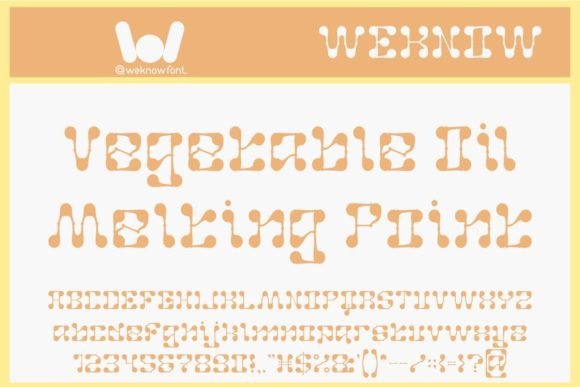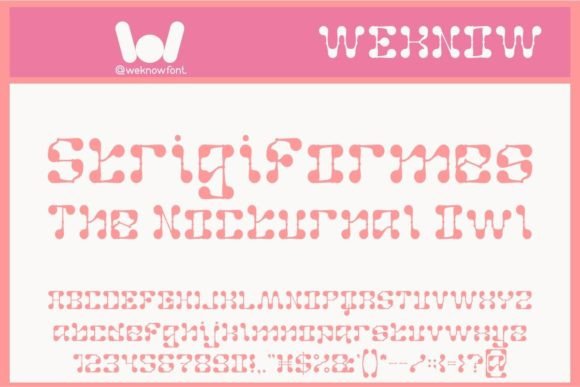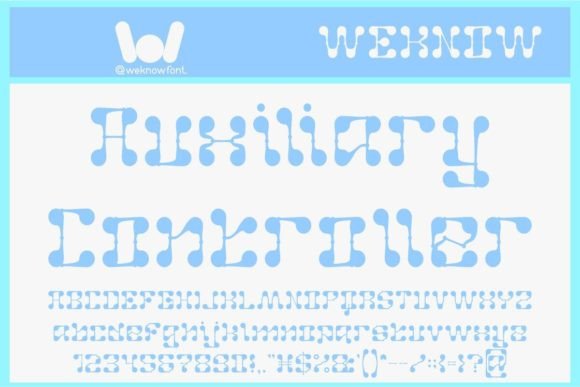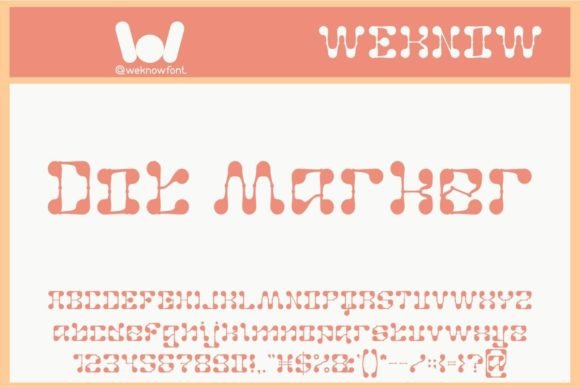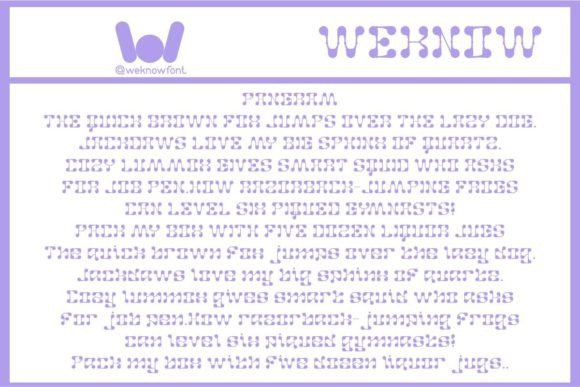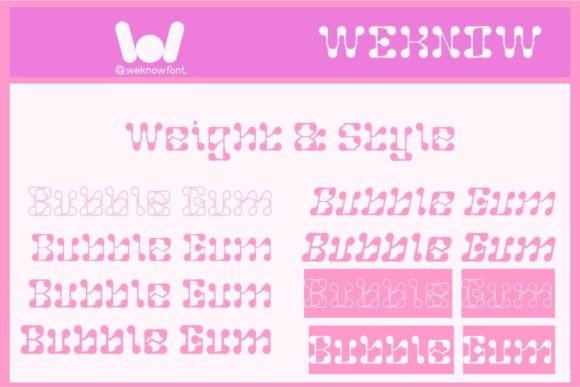
Get Ready to Blow Some Bubbles with Your Design
Who hasn’t had that moment when you’re brainstorming a new project and the perfect font suddenly pops into your head, only to leave you wondering where it is when you need it most? For designers, this moment is a familiar one, and the search for that elusive perfect font can be a daunting task. But what if you could capture the essence of a playful, whimsical spirit in your design, and have it at your fingertips whenever you need it?
Enter the Bubble Gum Font, a delightfully eclectic display font that brings a touch of fun and whimsy to any project. With its playful dots and rounded features, this font is the perfect tool for designers looking to add a little extra something special to their work. Whether you’re crafting a logo, creating a headline, or designing a website, the Bubble Gum Font is the perfect companion to help bring your vision to life.
Bubble Gum Font Key Features
- Font Family: Bubble Gum is a unique, hand-drawn font designed to resemble bubble gum. It is available in a single font family.
- Character Set: The font contains a wide range of characters, including uppercase and lowercase letters, numbers, punctuation marks, and special characters.
- Unique Characteristics: The font’s unique, hand-drawn style and bubbly texture give it a playful and fun appearance, making it perfect for use in children’s books, advertisements, and other creative projects.
Bubble Gum Font Review
When I first laid eyes on the Bubble Gum Font, I was immediately drawn to its playful, childlike charm. ✨ The font’s rounded edges and bubbly aesthetic make it perfect for projects that require a lighthearted, whimsical touch.
- ✨ Unique and playful character set that’s sure to grab attention.
- ✨ Great for creating fun and engaging headlines or titles.
- ✨ Easy to read and understand, even at smaller font sizes.
- ⚠️ Limited support for special characters and languages other than English.
- ⚠️ May not be suitable for formal or professional projects.
- ⚠️ Some users may find the font too childish or immature.
Overall, I think the Bubble Gum Font is a great choice for designers looking to add some personality and whimsy to their projects. While it may not be suitable for every project, it’s a fun and playful font that’s sure to bring a smile to people’s faces.
Tips: Use the Bubble Gum font for playful and youthful designs, such as birthday invitations or children’s party materials.
Tips: Use the Bubble Gum font for creative and whimsical designs, such as greeting cards or social media graphics.
Tips: Use the Bubble Gum font for presentations or documents that require a fun and approachable tone.
The Bubble Gum font is ideal for:
1. Children’s party materials, such as invitations and decorations.
2. Greeting cards and social media graphics.
3. Presentations and documents that require a fun and approachable tone.
4. Playful and youthful designs, such as birthday invitations or promotional materials.
Alternatives to Bubble Gum Font for Designers
Great Vibes is a beautiful, handwritten font that is perfect for adding a touch of elegance and sophistication to your designs. It is ideal for use in titles, headings, and other display text where a unique and eye-catching look is desired.
Compared to Bubble Gum Font, Great Vibes has a more refined and polished look, making it suitable for a wider range of designs, from fashion and beauty to weddings and events.